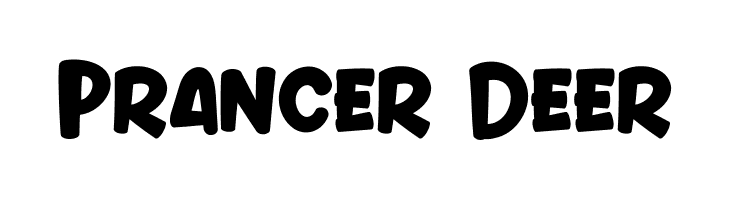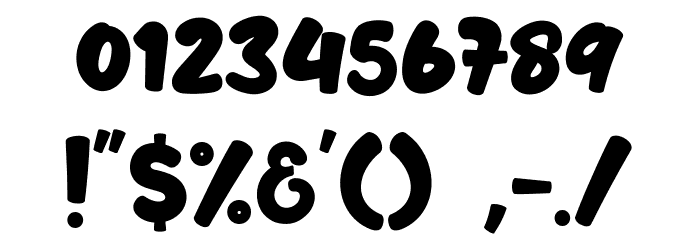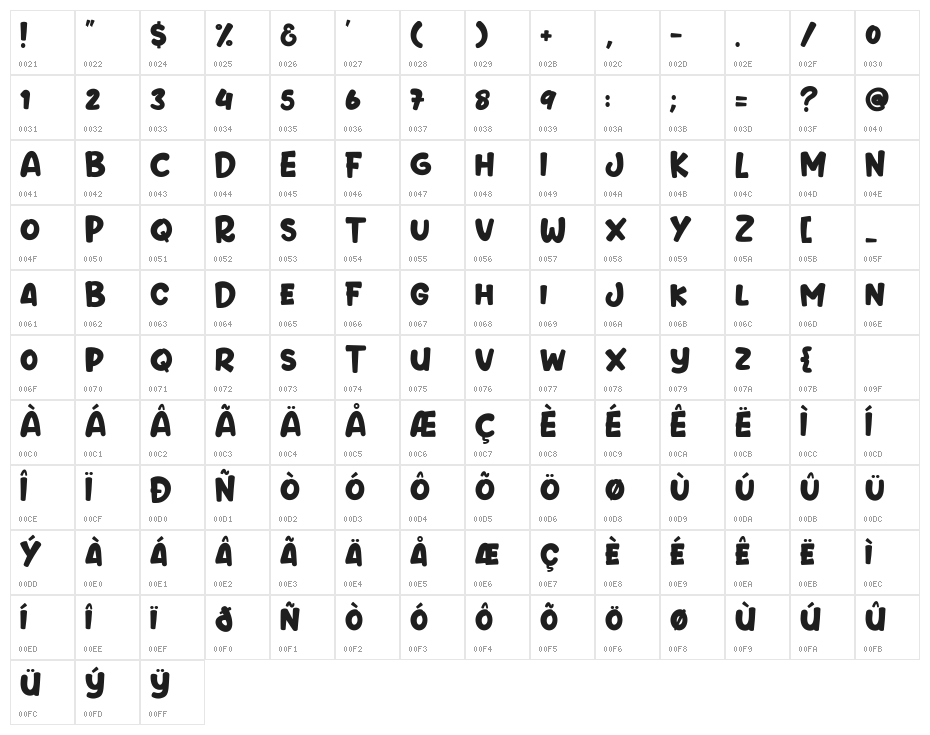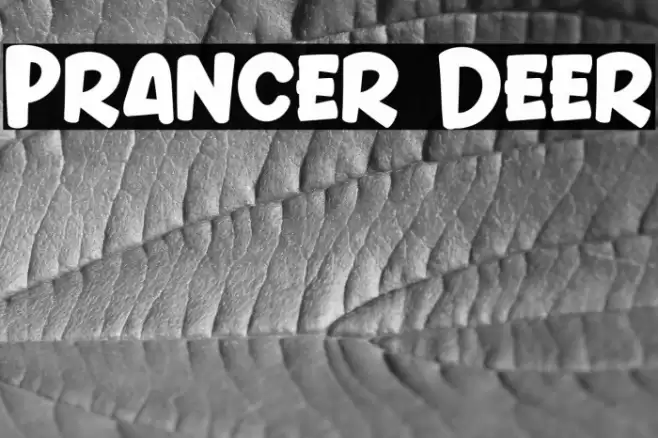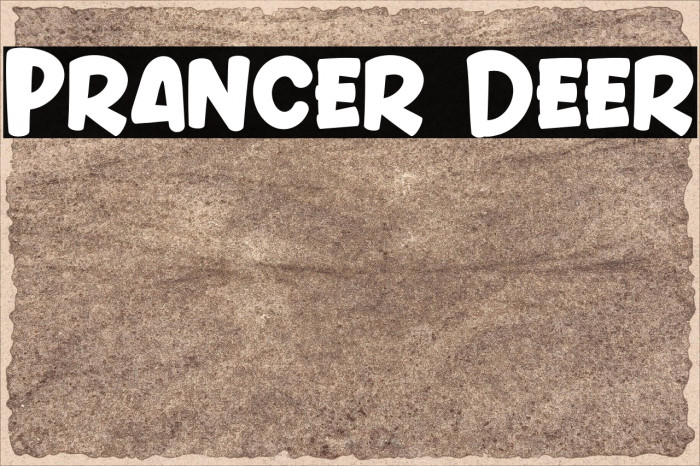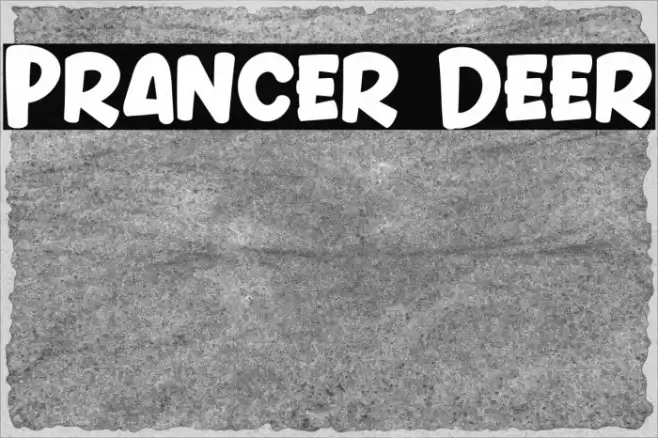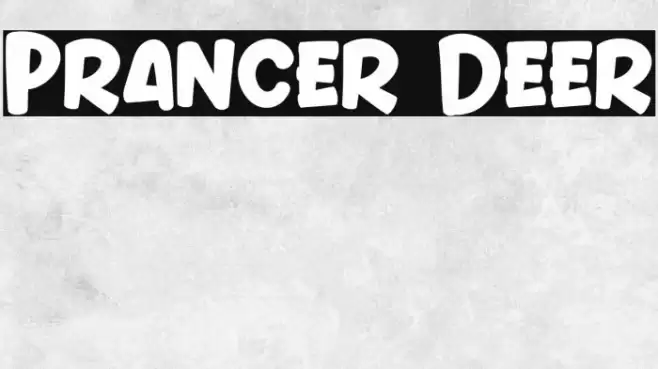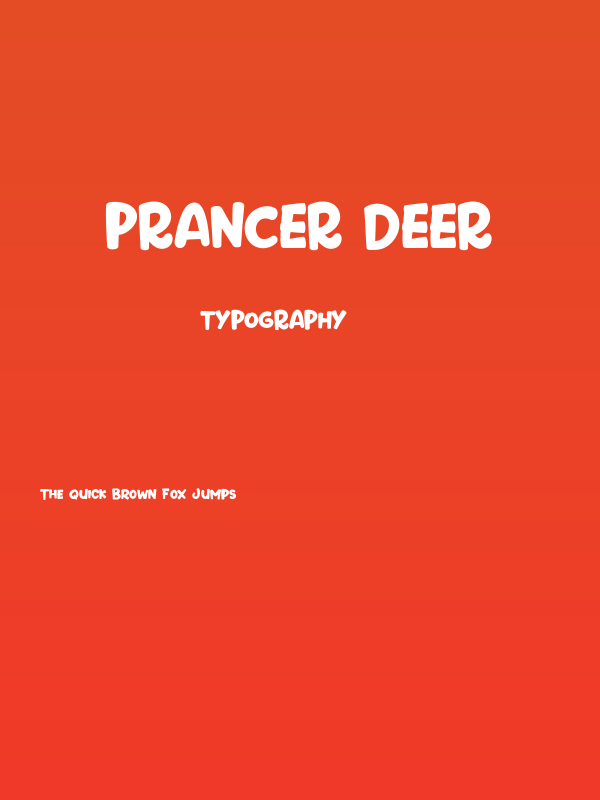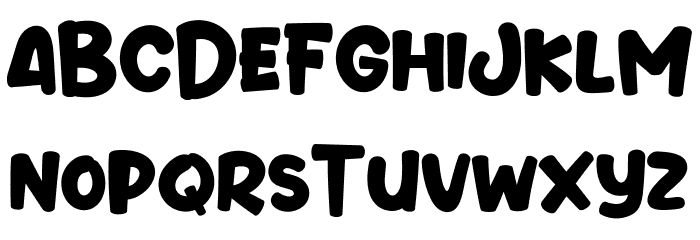
Prancer Deer Font
Prancer Deer Description
This playful and bold font features rounded, thick strokes that give it a friendly and approachable appearance. The characters are slightly irregular, adding a whimsical touch that makes it stand out. The uppercase and lowercase letters maintain a consistent weight, providing a cohesive look across different text sizes. The numbers and special characters are designed with the same playful style, ensuring uniformity throughout. This font is perfect for projects that require a fun and lively aesthetic, such as children's books, party invitations, or playful branding.
| Proposed Projects | Ideal for children's books, party invitations, playful branding, and creative posters. |